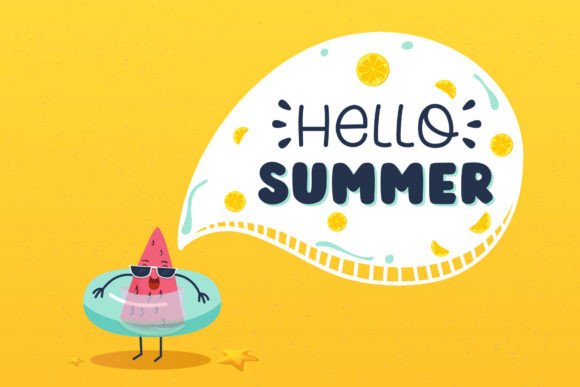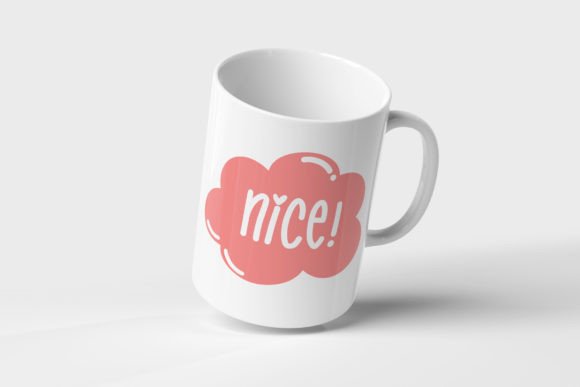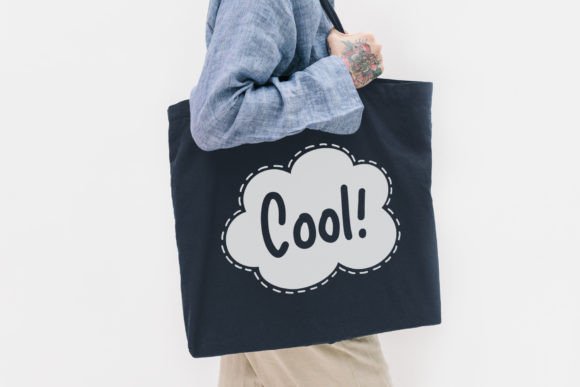
Introduction to Fox Decorate Font
Fox Decorate is a fun and cute dingbat font.
It can be used for a variety of purposes, be it decorating designs or decorating plans Add them to your creative ideas and make your designs outstanding.
Fox Decorate Font offers exceptional quality and versatility, making it a valuable addition to your design toolkit. Whether you’re creating for personal projects or commercial use, Fox Decorate Font delivers professional results.